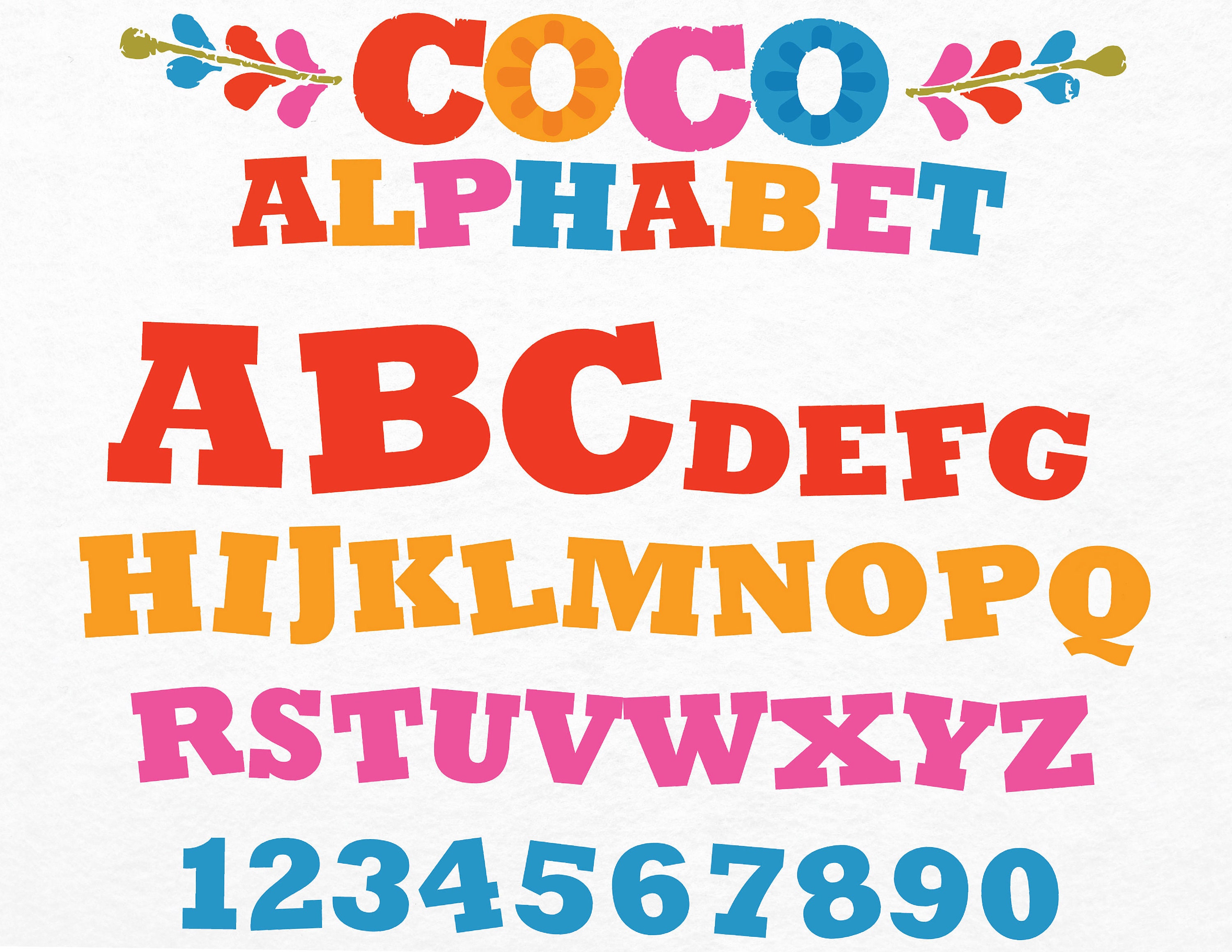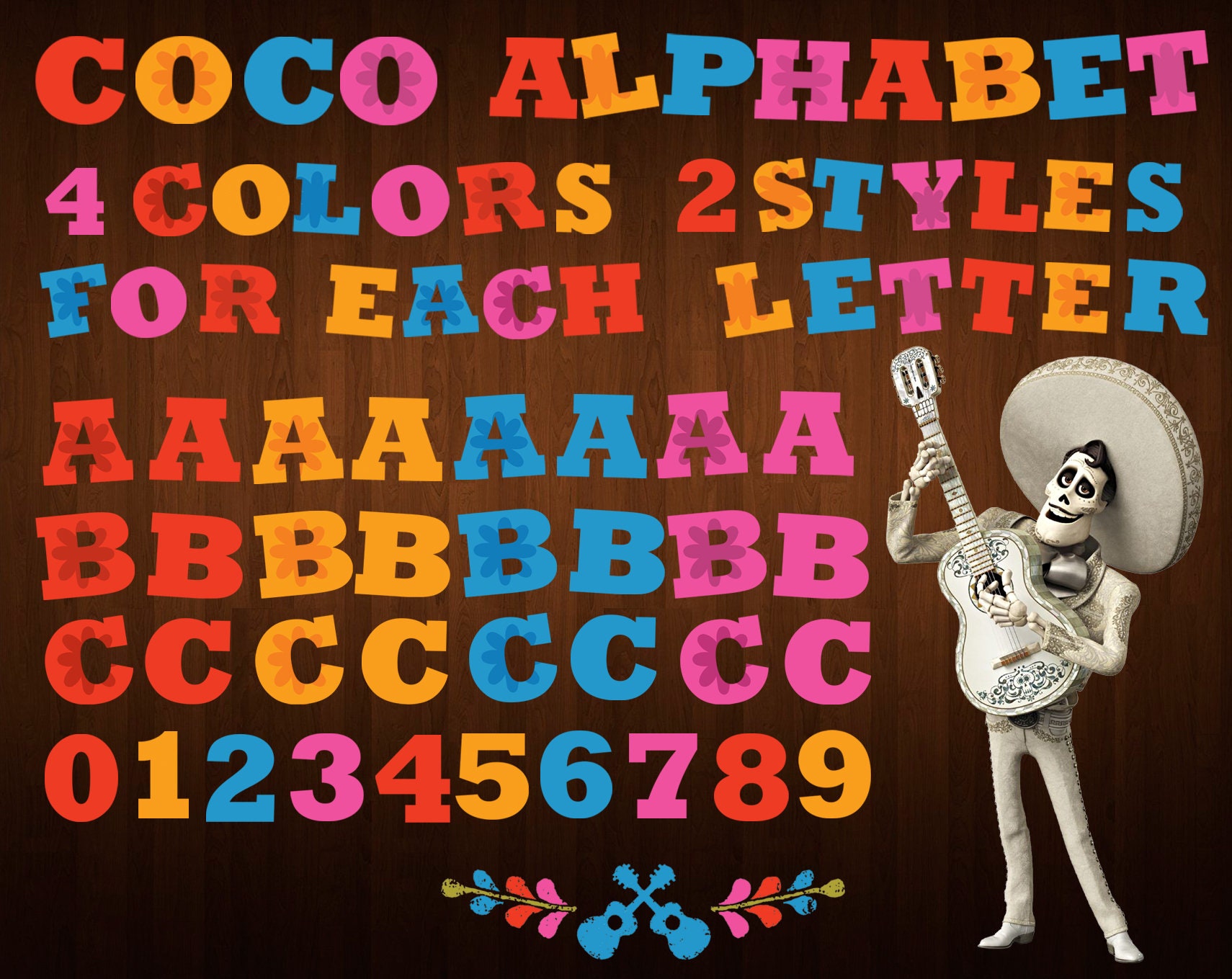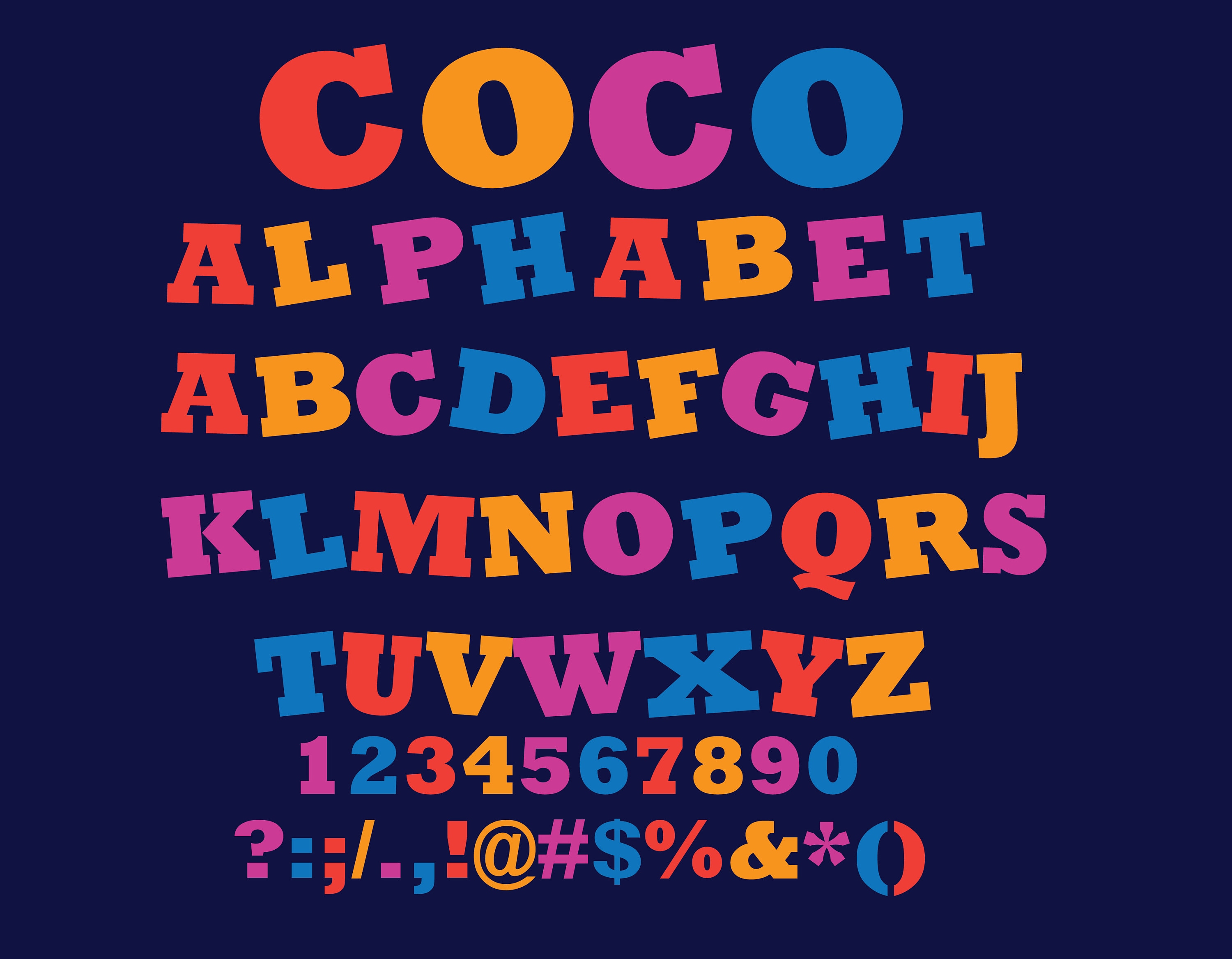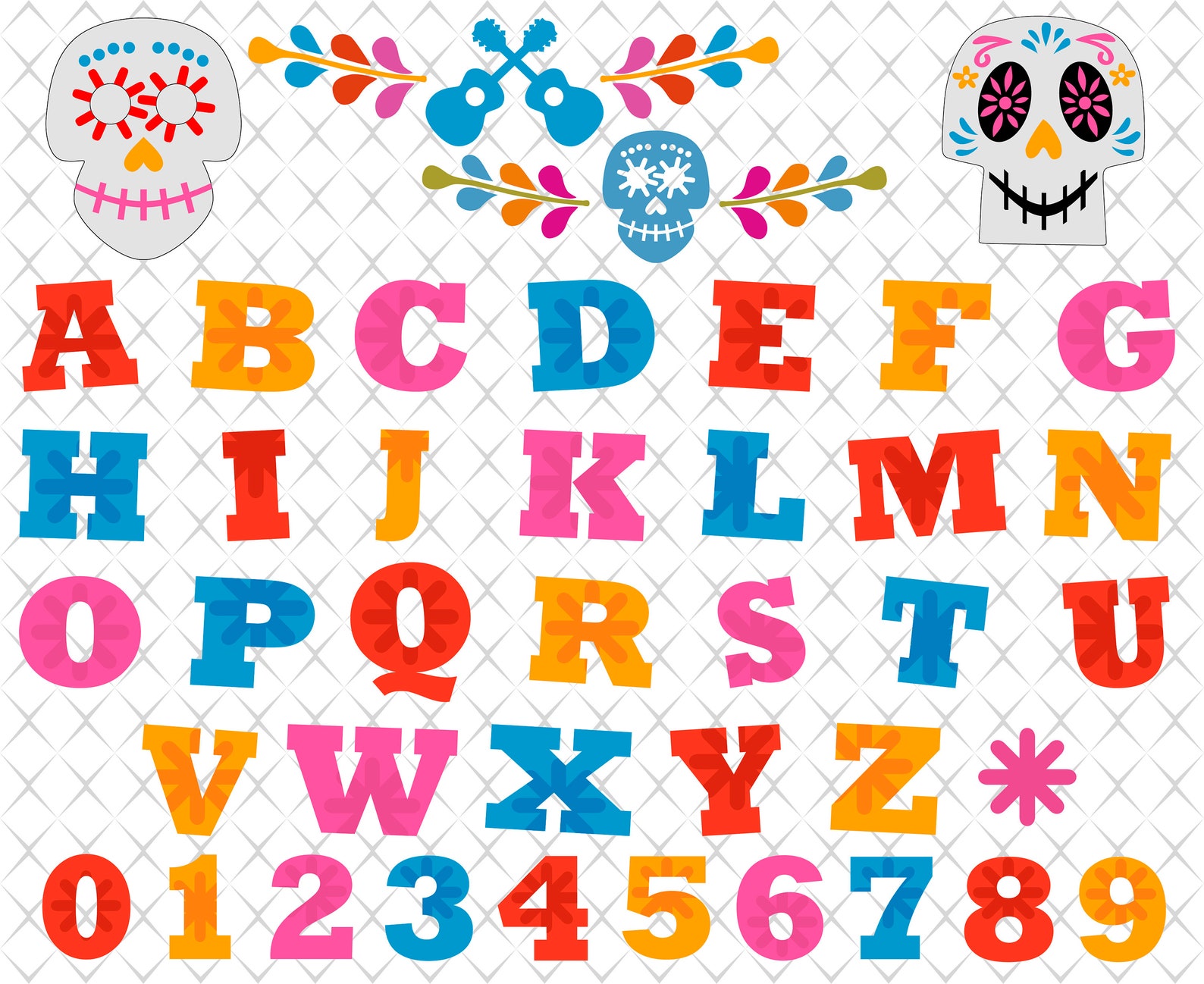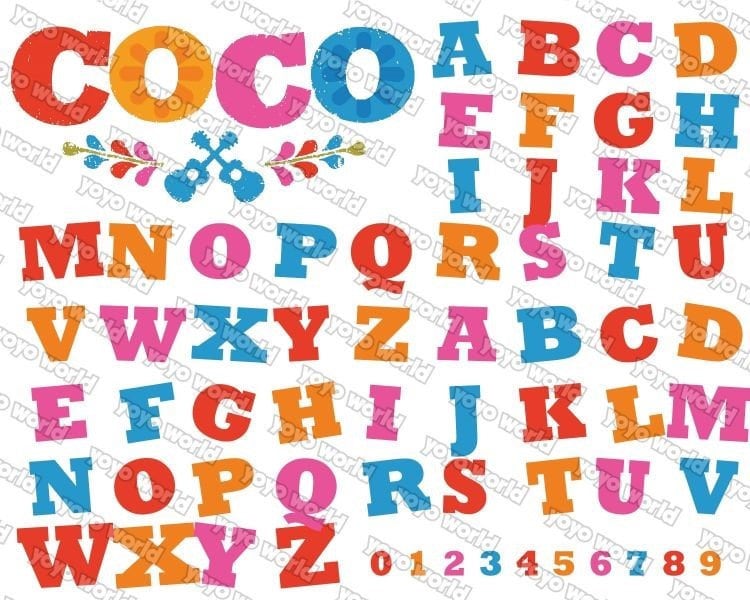
Coco Movie Font
Coco Movie Font - This coco font is flawless on flower designs! This font was found for an franco fernández's website named cine1.
This font was found for an franco fernández's website named cine1. This coco font is flawless on flower designs!
This coco font is flawless on flower designs! This font was found for an franco fernández's website named cine1.
This font was found for an franco fernández's website named cine1. This coco font is flawless on flower designs!
This coco font is flawless on flower designs! This font was found for an franco fernández's website named cine1.
This font was found for an franco fernández's website named cine1. This coco font is flawless on flower designs!
This coco font is flawless on flower designs! This font was found for an franco fernández's website named cine1.
This Coco Font Is Flawless On Flower Designs!
This font was found for an franco fernández's website named cine1.